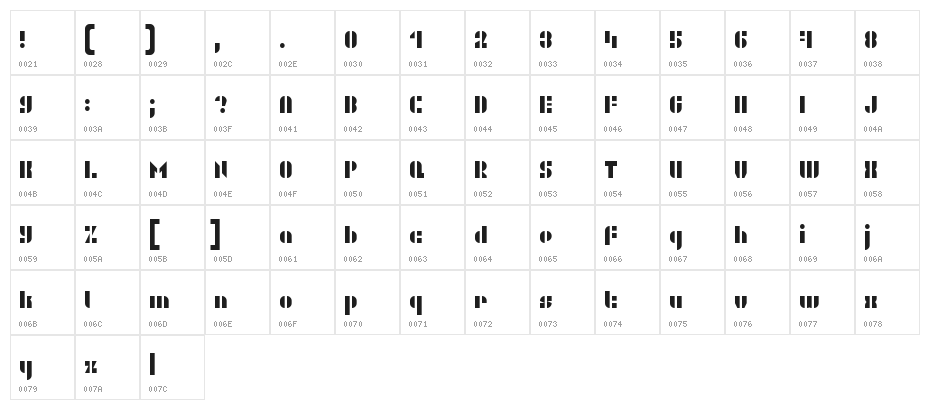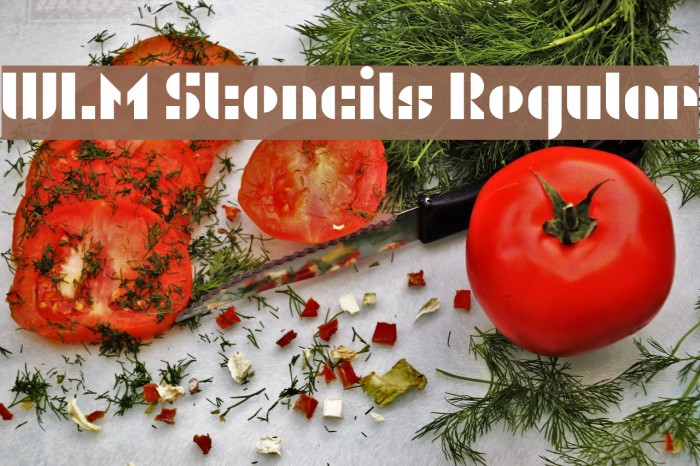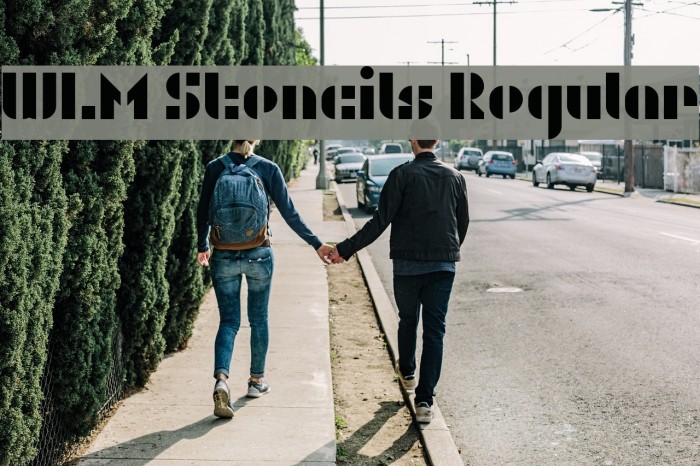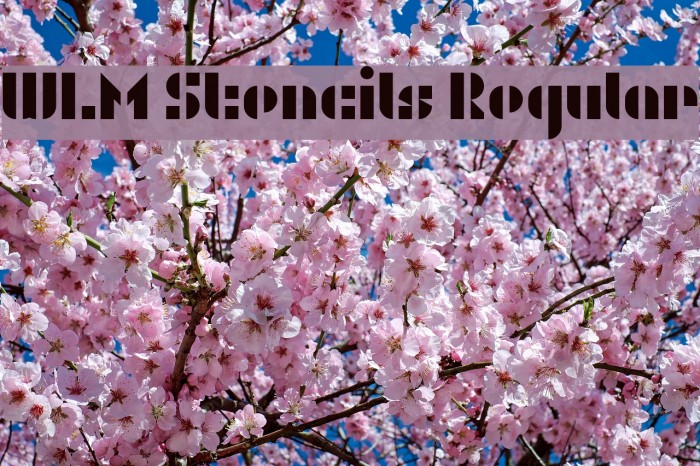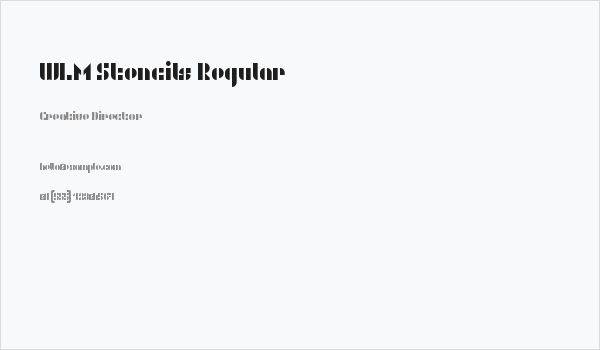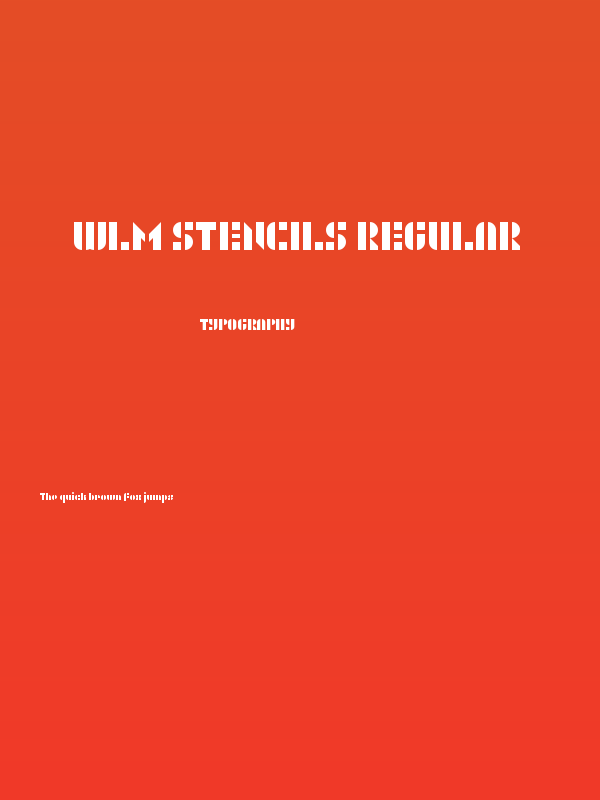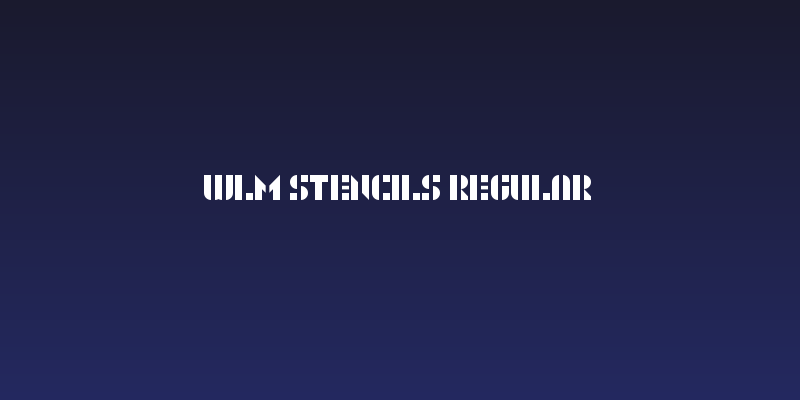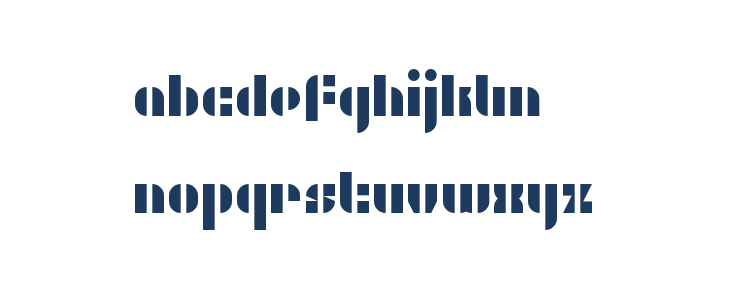
WLM Stencils Regular Font
WLM Stencils Regular Description
This font features a bold, stencil-like design with distinct geometric shapes and sharp angles. The uppercase letters are particularly striking, with a strong presence and a clear, industrial feel. The lowercase letters maintain the same boldness, offering a cohesive look throughout. Numbers and special characters are designed to match the bold, structured style, making them highly legible and impactful. The font's unique cut-out sections give it a modern, edgy appearance, perfect for creating attention-grabbing designs.